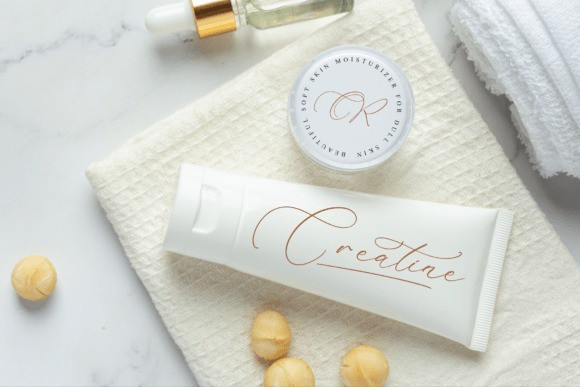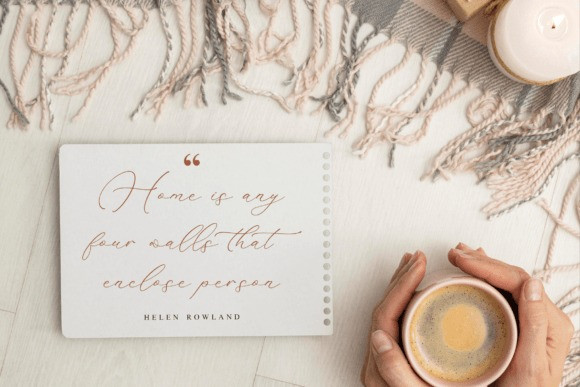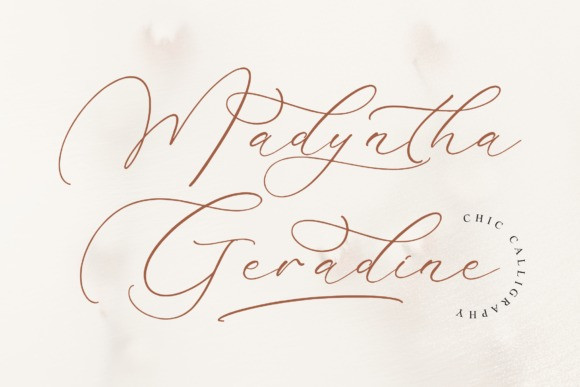
Madyntha Geradine Font
Proudly present Madyntha Geradine – Chic Calligraphy , created by Storytype, a luxury script that has own unique style & modern look.